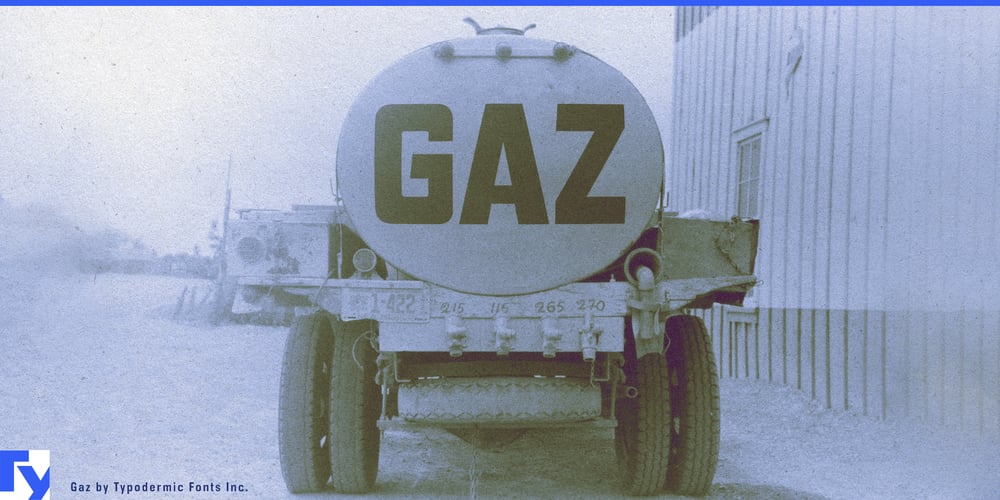
Gaz
Gaz font
Gaz Font Family was designed by Ray Larabie and published by Typodermic. Gaz contains 19 styles and family package options. Fuel your designs with Gaz, a square display typeface that ignites the spirit of 20th-century gasoline station signs. This font doesn’t just nod to the past—it roars down memory lane with the power of a vintage V8 engine, all while maintaining a surprisingly smooth ride.Affectionately dubbed “stovepipe” by sign painters of yore, Gaz’s sharp angles and rounded corners capture the essence of industrial Americana. But don’t be fooled by its tough exterior—this typeface has a heart of gold, blending rugged charm with an unexpectedly friendly demeanor. It’s like the typographic equivalent of a gruff but lovable mechanic. Gaz flexes its muscles with seven weights and matching italics, offering designers a full tank of creative options. But here’s where it kicks into high gear: five greasy effect styles that add just the right amount of grit and wear. These aren’t your run-of-the-mill distressed fonts—Gaz’s ligatures seamlessly blend in most applications, creating an authentically weathered look that feels as natural as oil on asphalt.This typeface isn’t just a pretty face—it’s a linguistic road trip across borders. Supporting a vast array of Latin-based European writing systems, Gaz ensures your message maintains its vintage industrial charm whether you’re cruising through Croatian or zipping along in Zulu. Choose Gaz when you need typography that doesn’t just speak—it revs. It’s the perfect choice for designs that aim to capture the essence of the open road, the spirit of adventure, and the timeless appeal of American industrialism. Let Gaz be the voice of your boldest ideas, transforming ordinary text into a journey through typographic time and space.In a world of sleek, modern fonts, Gaz stands proud as a testament to the enduring appeal of vintage Americana. It’s not just a typeface; it’s a time machine on four wheels, ready to take your designs on a nostalgic road trip. Get Gaz now and inject some high-octane, retro charm into your next project. Because sometimes, the best way to move forward is to take a stylish glance in the rearview mirror.